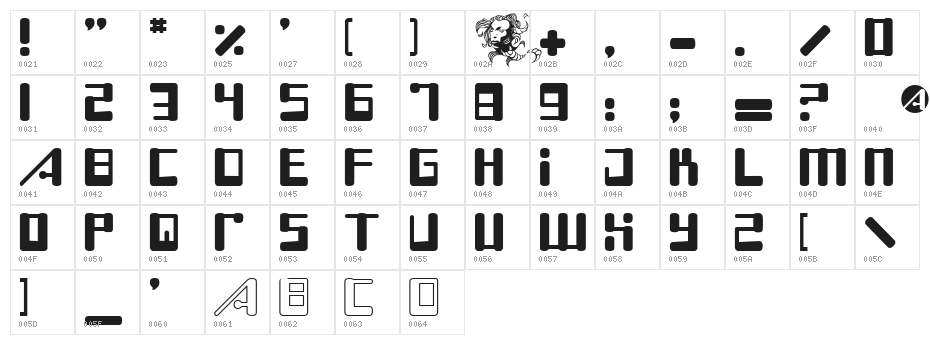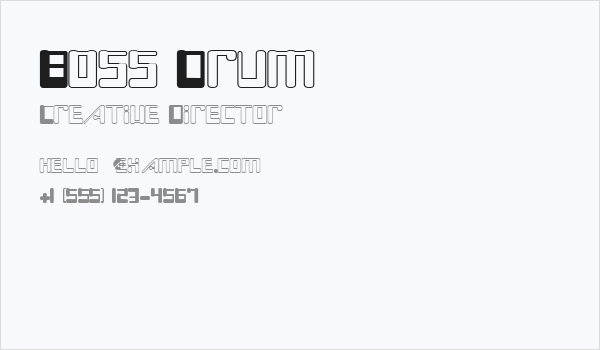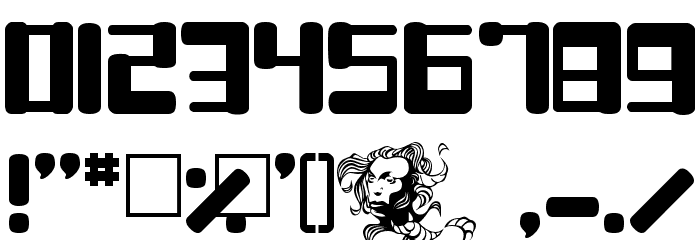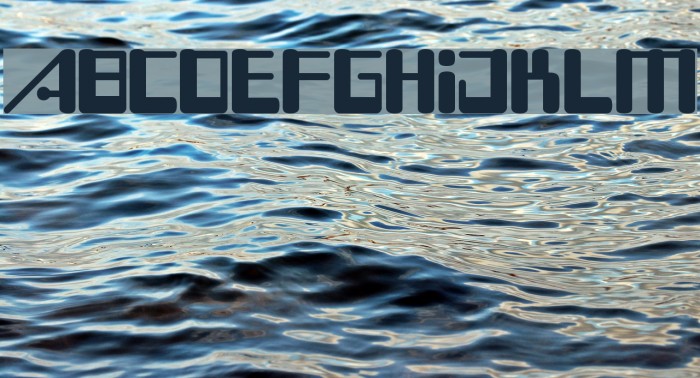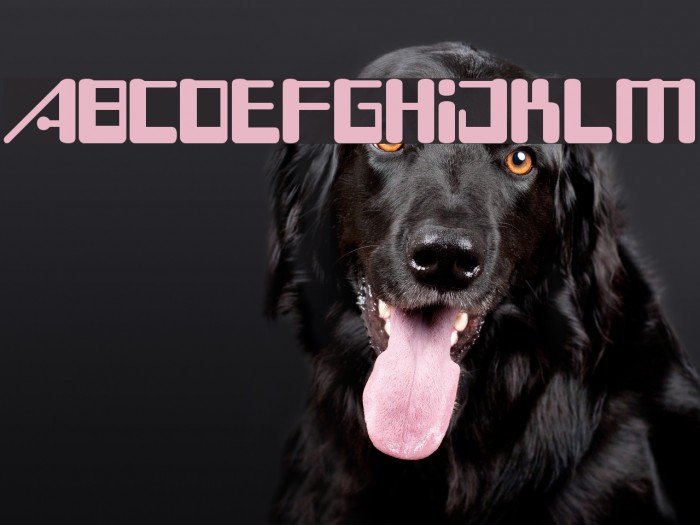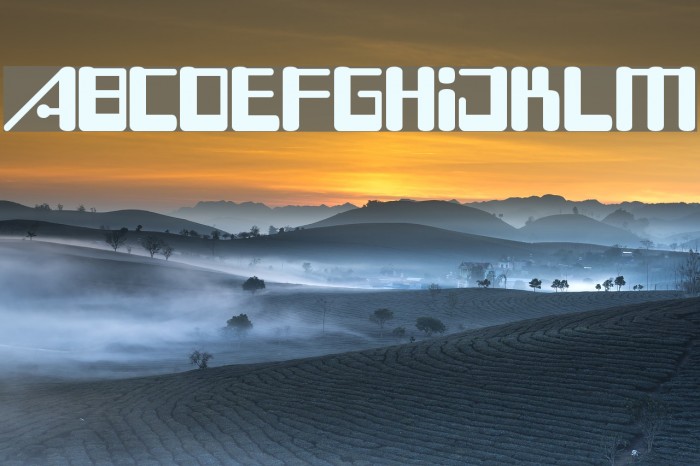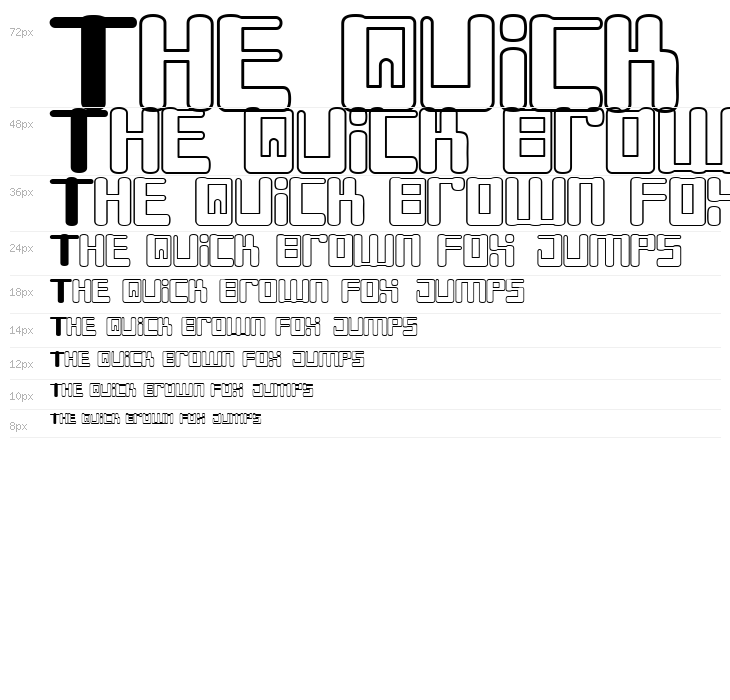
Boss Drum Font
Boss Drum Description
This font features a bold, geometric design with a modern and futuristic aesthetic. The characters are constructed with thick, uniform strokes, creating a strong visual impact. The uppercase letters are particularly striking, with a blocky appearance that emphasizes their boldness. The lowercase letters maintain the same geometric style, ensuring consistency across the typeface. The numerals are equally bold, matching the overall style of the alphabet. Special characters are included, adding versatility to the font. The design is highly suitable for projects that require a modern and assertive look.